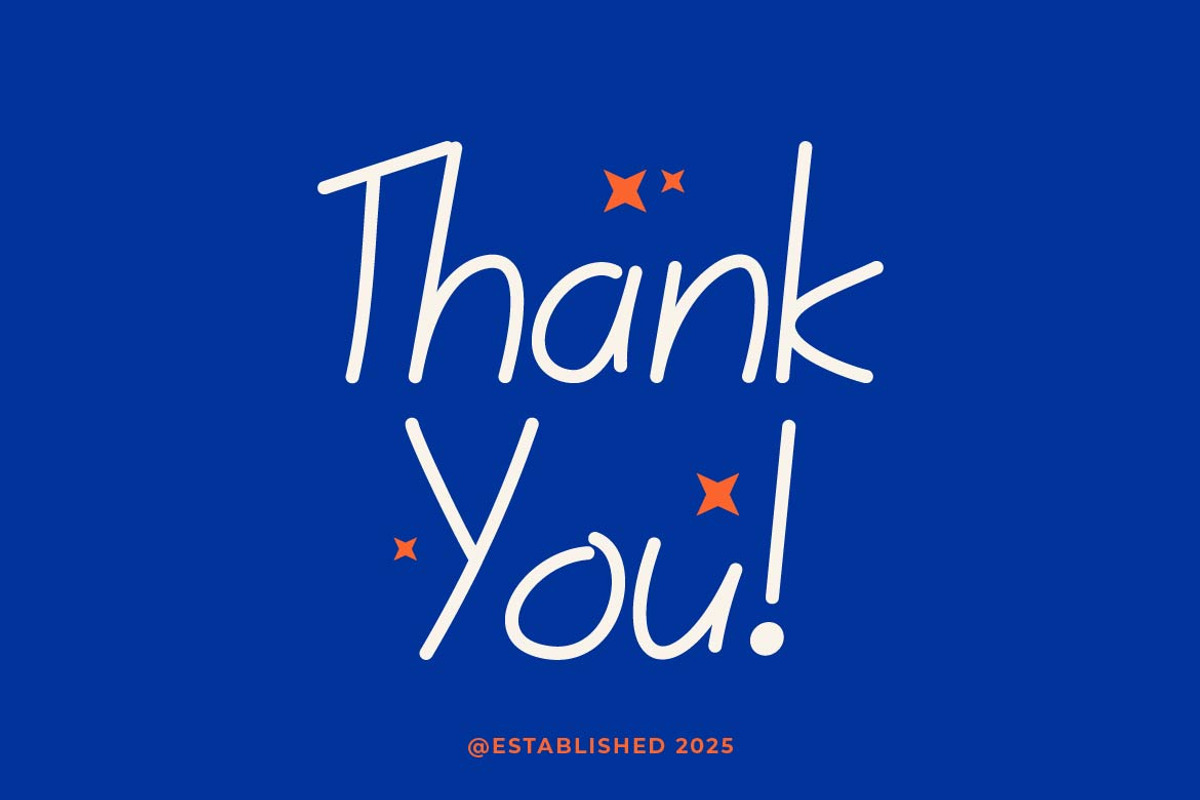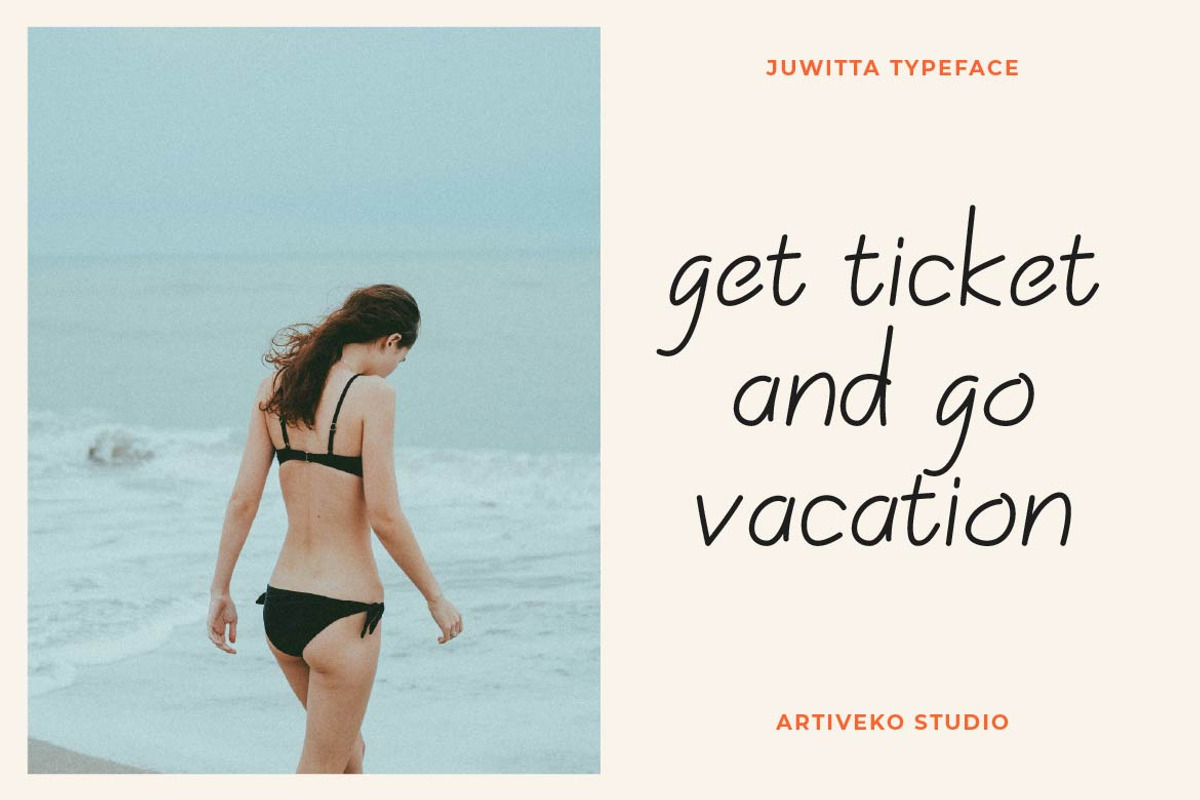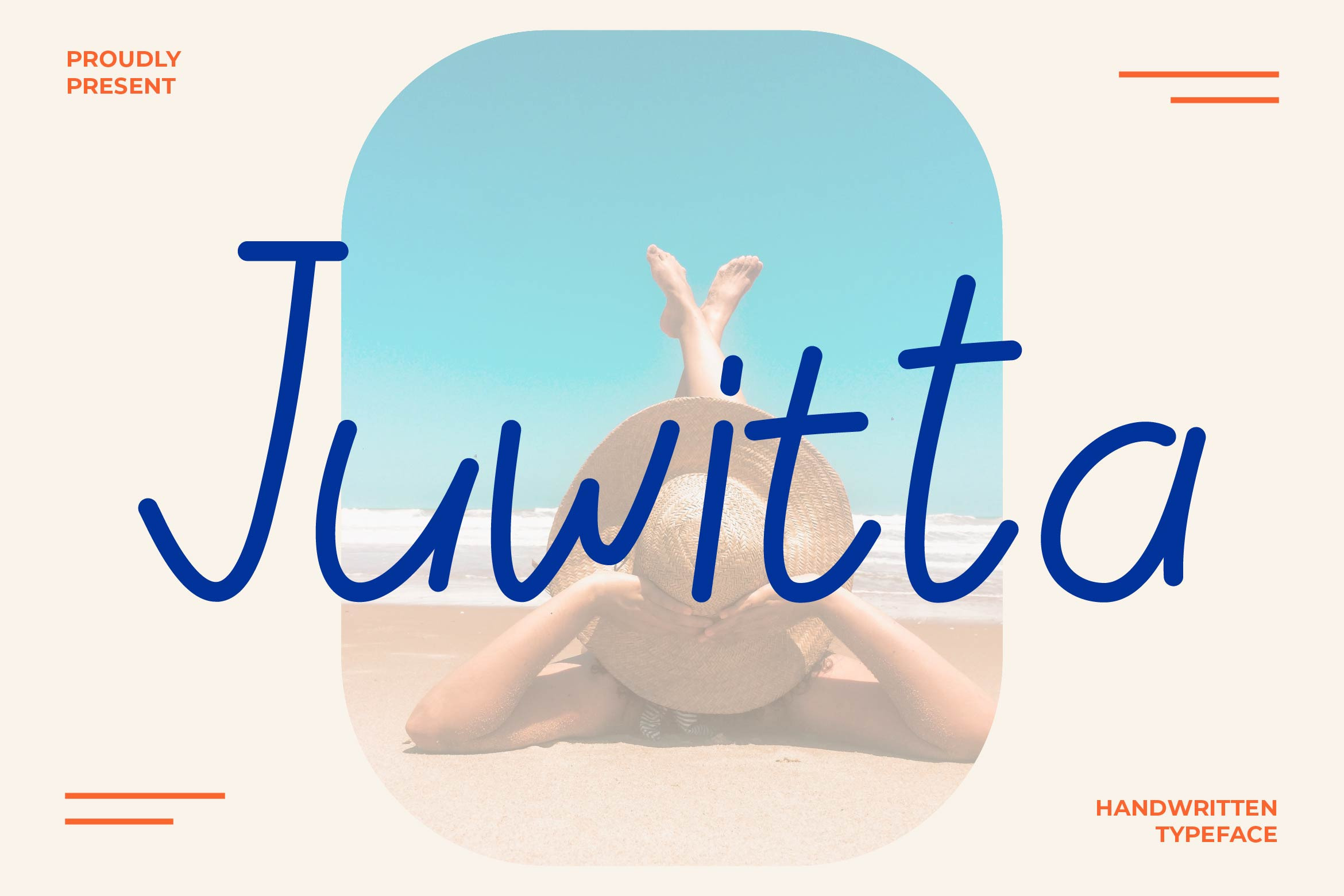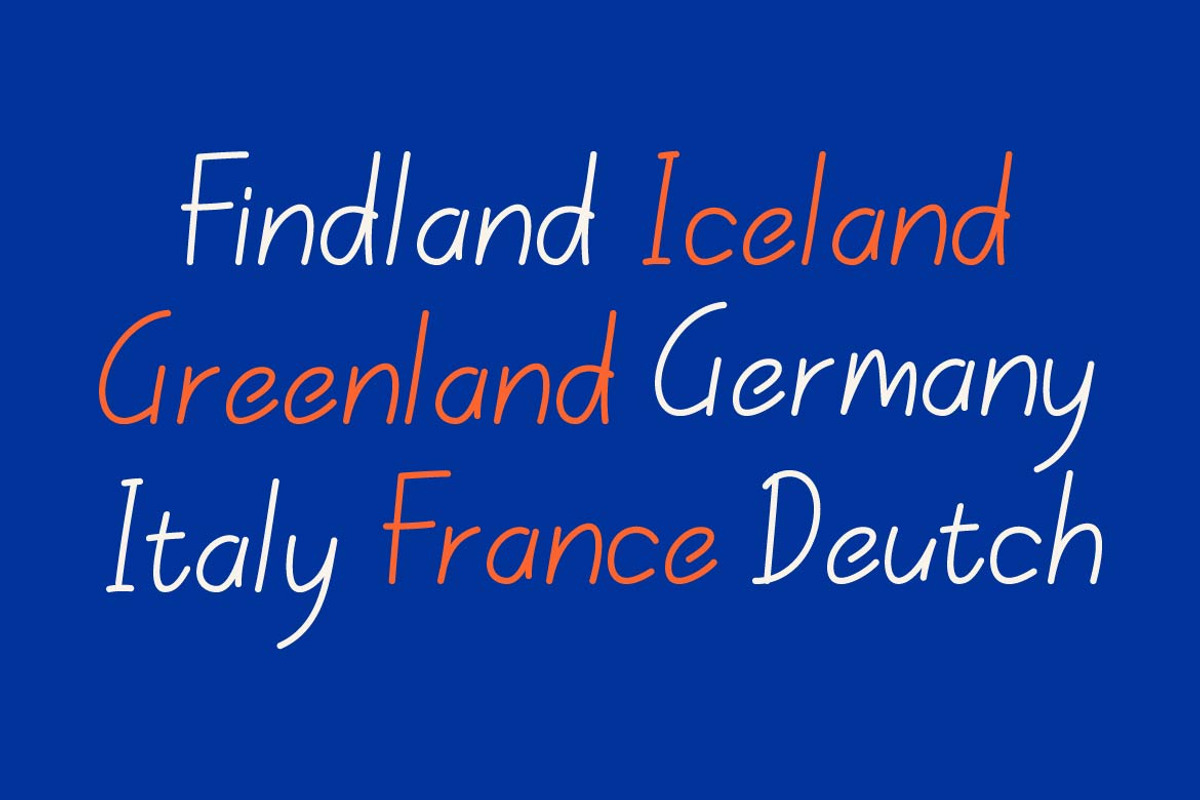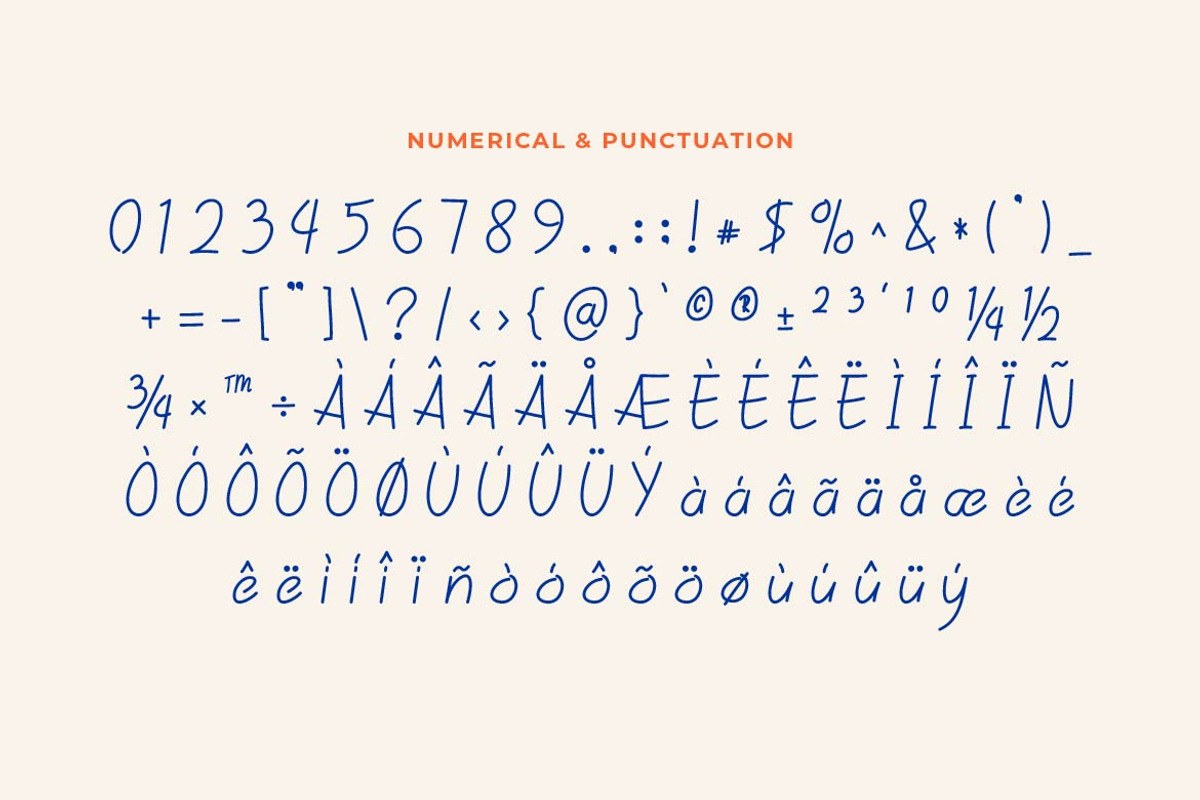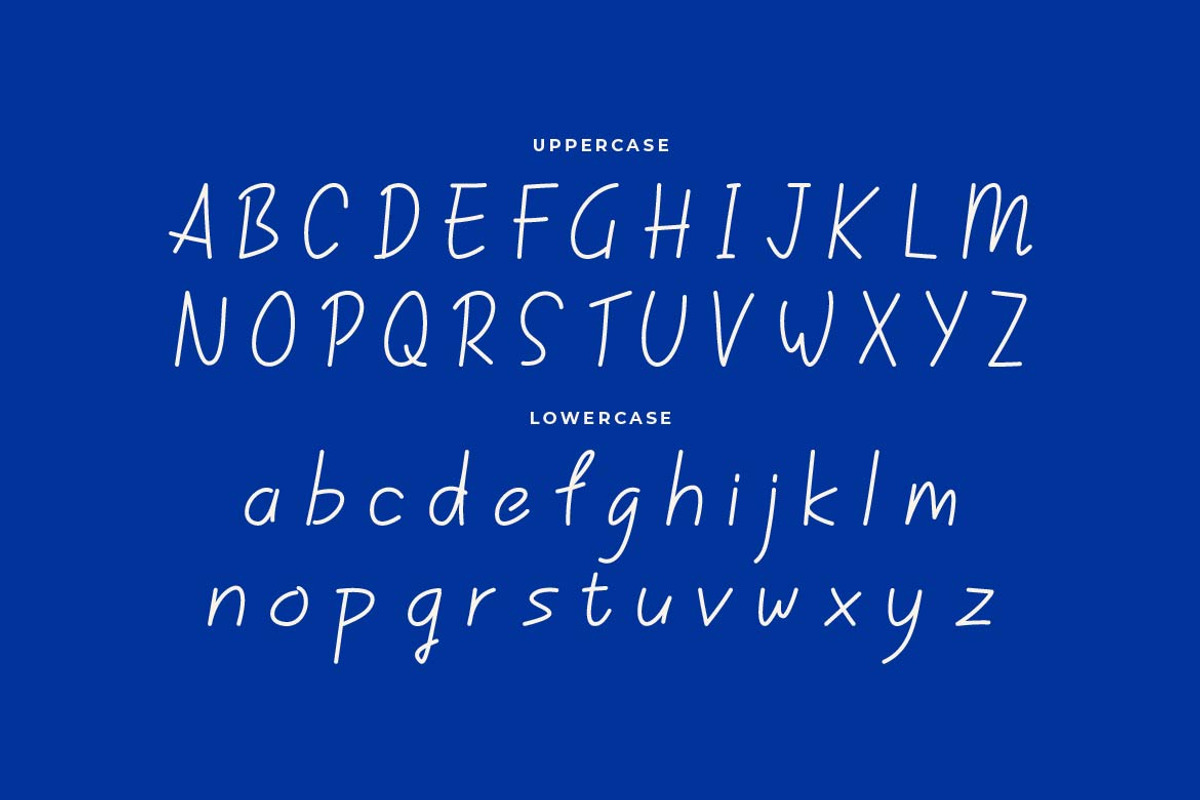
Juwitta Handwritten Font
Juwitta is a graceful handwritten font that combines gentle curves with expressive strokes, giving your designs a personal and artistic feel. With its flowing rhythm and naturally imperfect charm, Juwitta captures the beauty of authentic handwriting — perfect for feminine branding, invitations, social media quotes, product packaging, and creative lifestyle content.